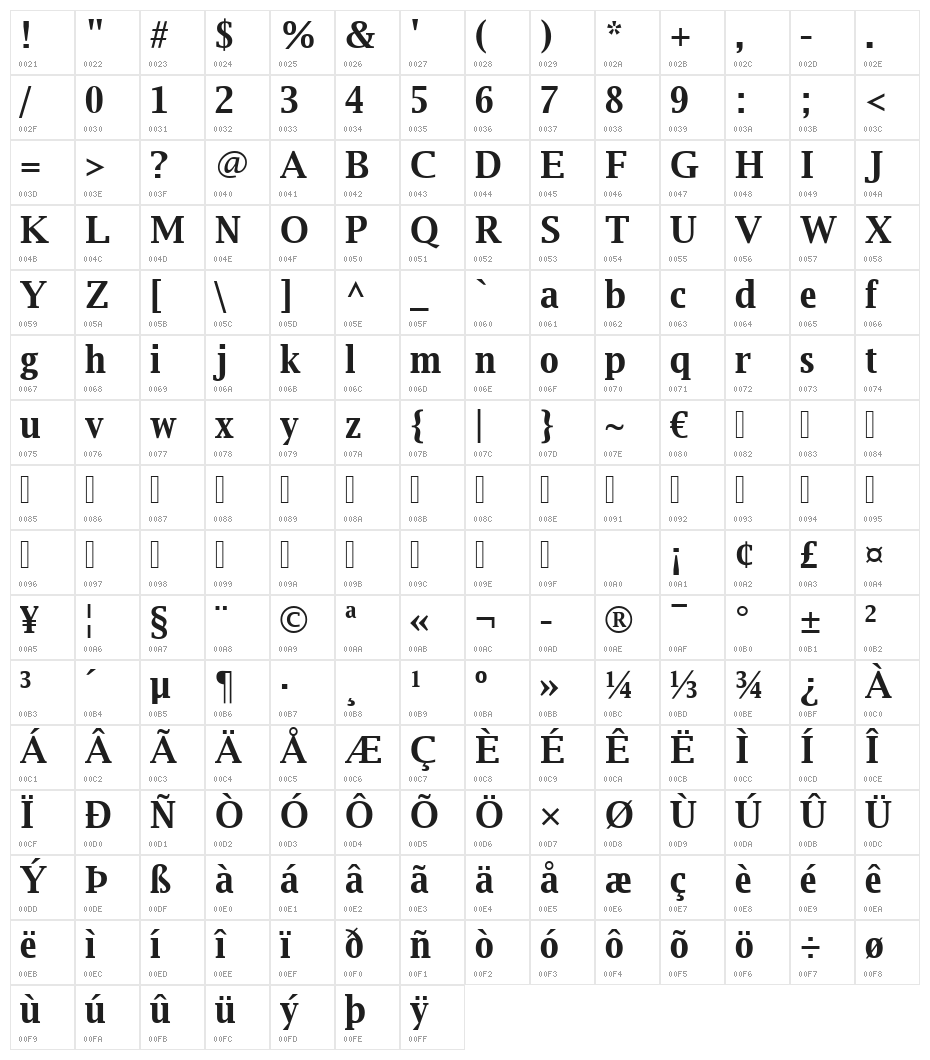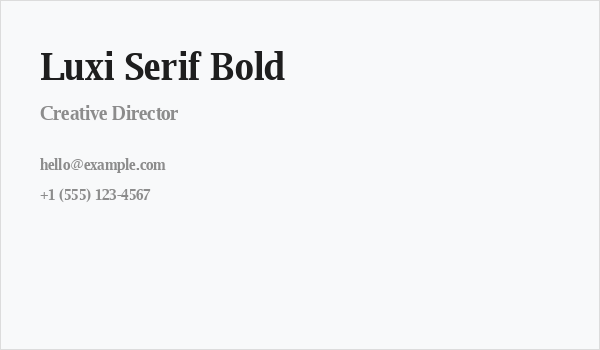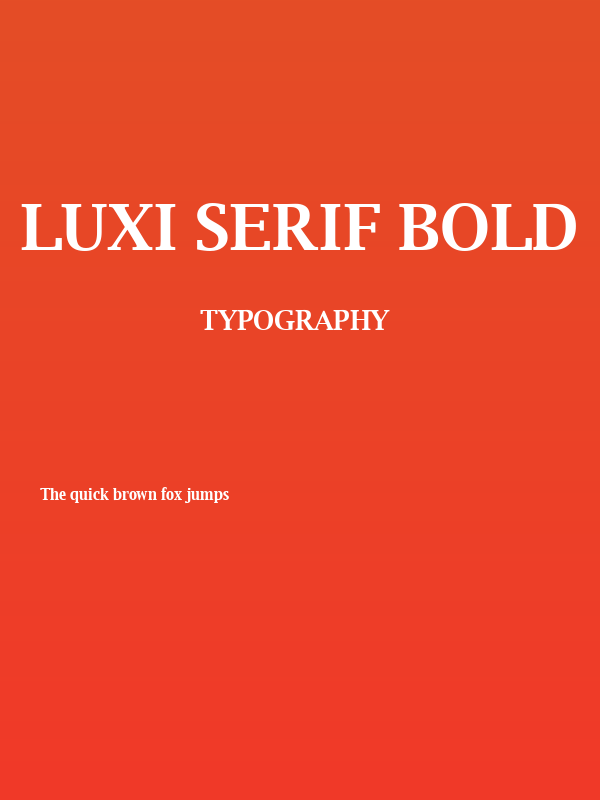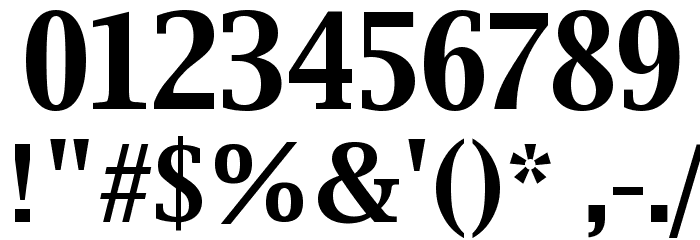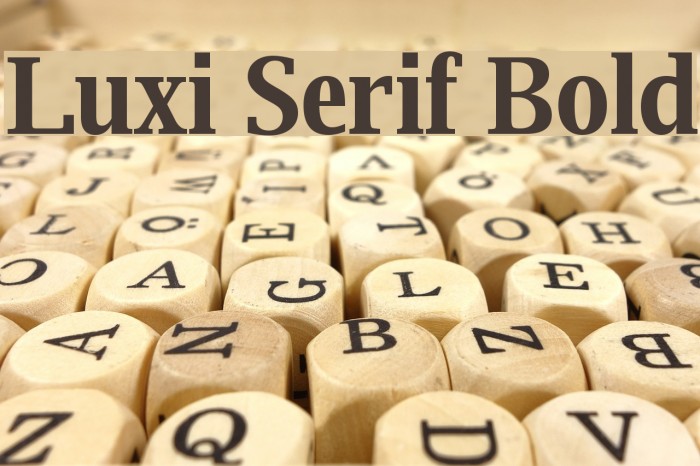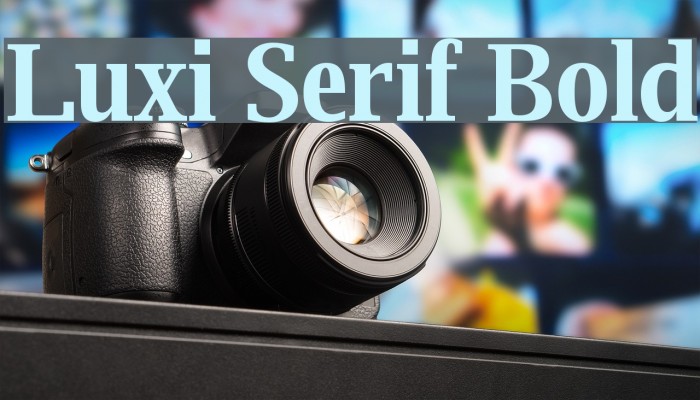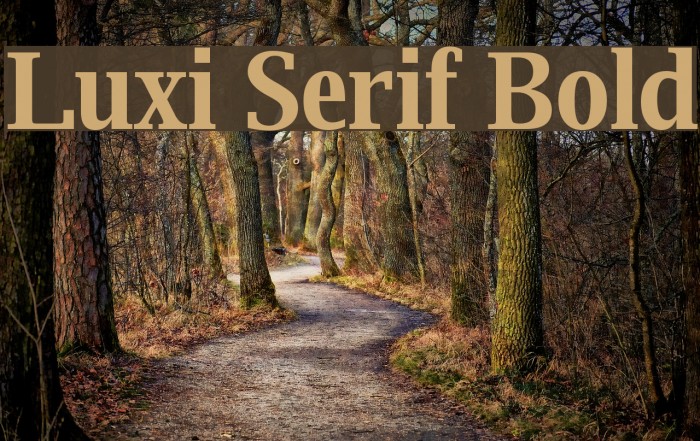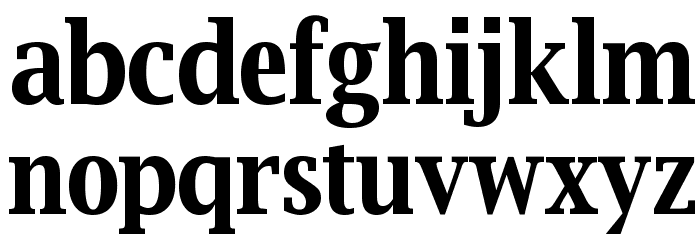
Luxi Serif Bold Font
Luxi Serif Bold Description
This font features a classic serif style with bold, prominent strokes that give it a strong and authoritative presence. The serifs are well-defined, adding a touch of elegance and tradition to the overall appearance. The uppercase letters are tall and commanding, while the lowercase letters maintain a consistent and balanced look. The numerals are clear and easy to read, making them suitable for a variety of applications. Special characters are included, maintaining the same bold and structured design. This font is ideal for projects that require a formal and professional touch.
| Overall Style | Classic |
| Use Case | Headlines, Logos, Editorial design |
| Proposed Projects | Ideal for book covers, formal invitations, corporate branding, and editorial design. |